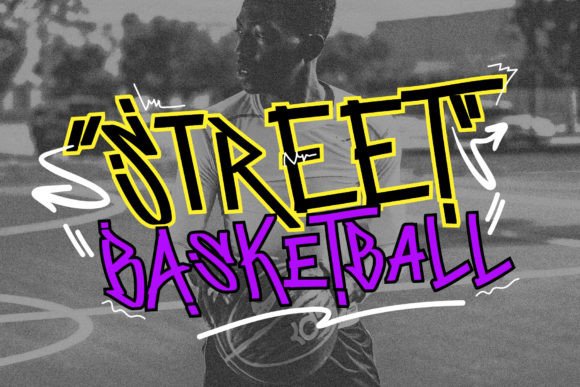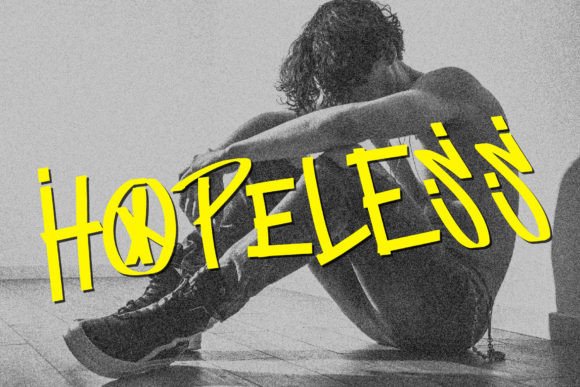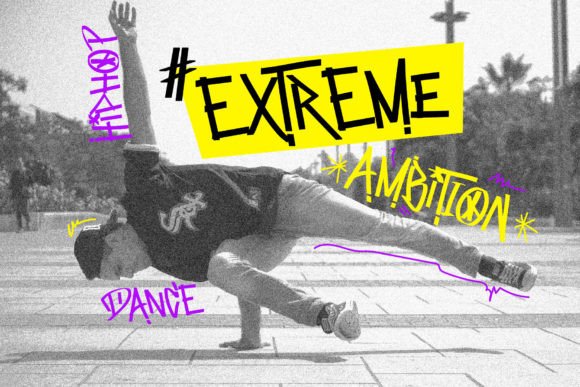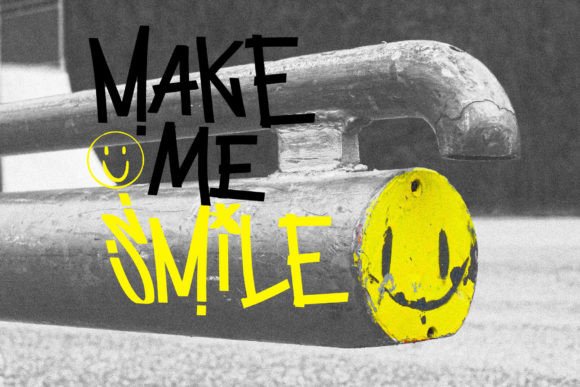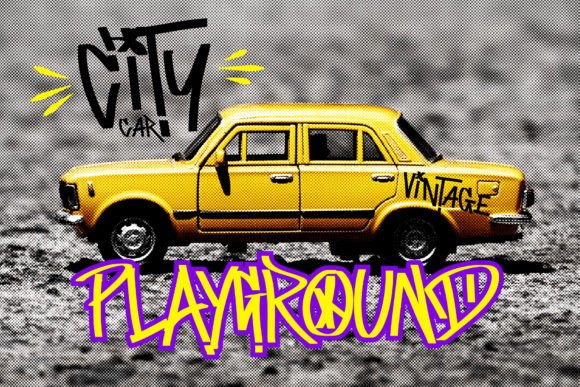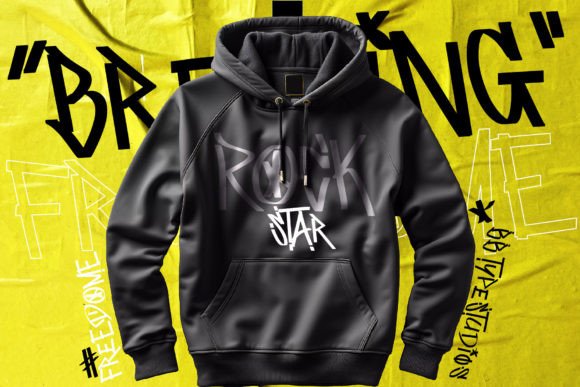
Unleash Your Creativity with Breaking: The Ultimate Display Font
I’ll never forget the moment I stumbled upon the perfect font for a client’s project. It was as if the stars aligned, and my design woes disappeared. I was working on a bold, urban-themed campaign, and I needed a font that would capture the essence of street art. That’s when I discovered Breaking, a captivating display font that blends avant-garde calligraphy with a unique graffiti edge.
The Birth of Breaking
Steeped in the raw energy of street art, Breaking embodies a cool urban charisma, transcending language and cultures. Its universally appealing design makes it an ideal fit for a plethora of endeavors, be it emblazoning t-shirts, adorning sportswear, branding logos, jazzing up advertisements, or enhancing clothing ranges.
My Honest Review of Breaking
- ✅ Unique graffiti edge that adds an edgy touch to any design
- ✅ Universally appealing design that transcends language and cultures
- ✅ Highly versatile and adaptable to various creative projects
- ✅ OpenType features that allow for endless creative possibilities
While Breaking is an amazing font, there are a few things to keep in mind:
- 🤔 Some characters may require manual kerning for optimal results
- ⚠️ Limited use of lowercase letters, as the font is primarily designed for display purposes
The Designer Inspiration Behind Breaking
Breaking was inspired by the vibrant street art scene, where artists push boundaries and challenge the status quo. The font’s designer aimed to capture the raw energy and creativity of this world, distilling it into a unique and versatile typeface.
Q: What type of projects is Breaking best suited for?
A: Breaking is ideal for bold, urban-themed projects, such as t-shirt designs, sportswear branding, and eye-catching advertisements.
Q: Does Breaking support OpenType features?
A: Yes, Breaking features OpenType capabilities, including glyphs and stylistic alternates, allowing for endless creative possibilities.